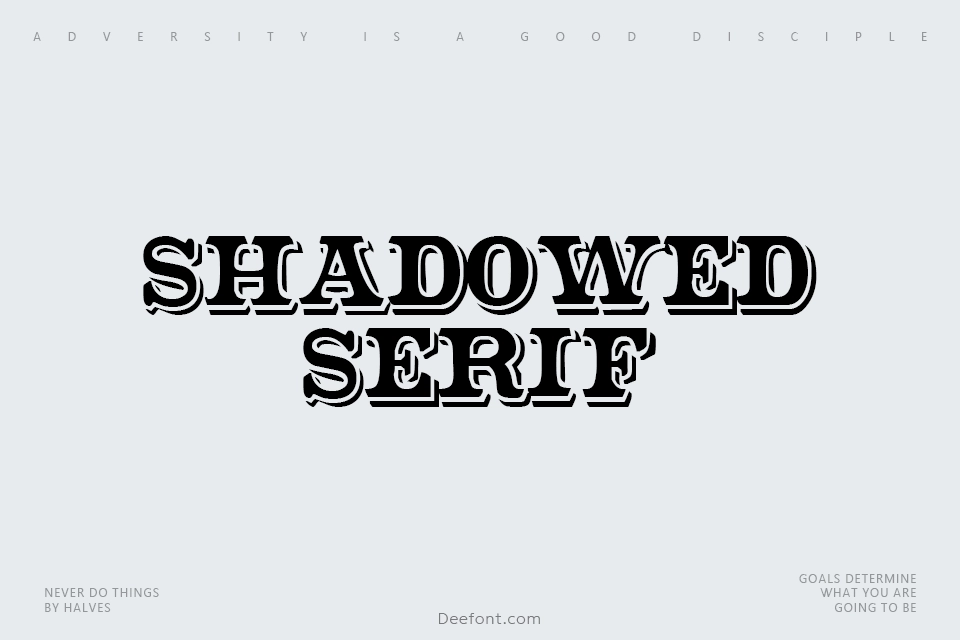
Shadowed Serif Font
Shadowed Serif is a distinctive 3D display font featuring bold serif letterforms with characteristic shadow effects, designed to evoke a classic western aesthetic. Originally created in 1994, this typeface delivers dramatic depth and dimension, making it ideal for eye-catching headlines, poster design, and vintage-inspired branding projects. The font’s robust construction and dimensional styling create a strong visual impact while maintaining excellent legibility for display purposes.